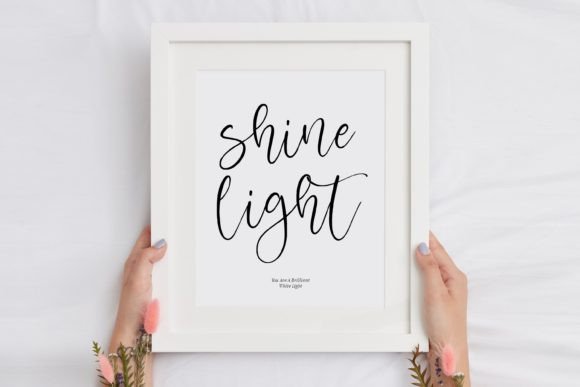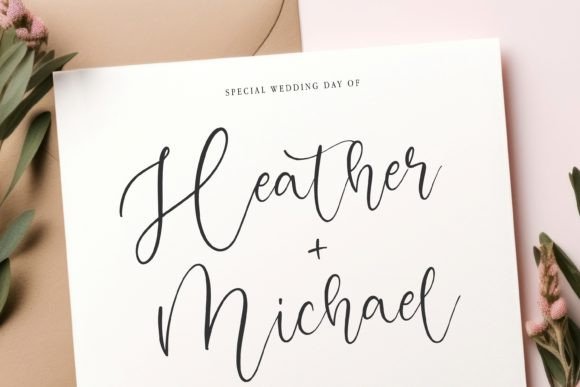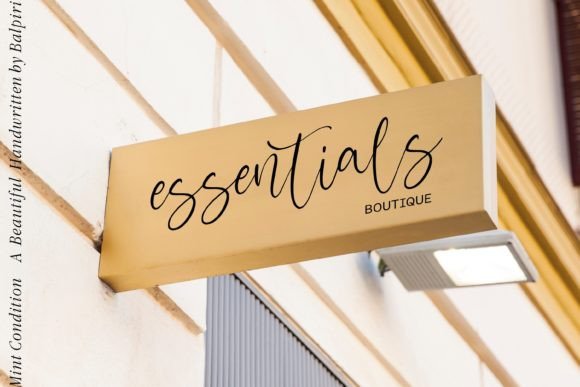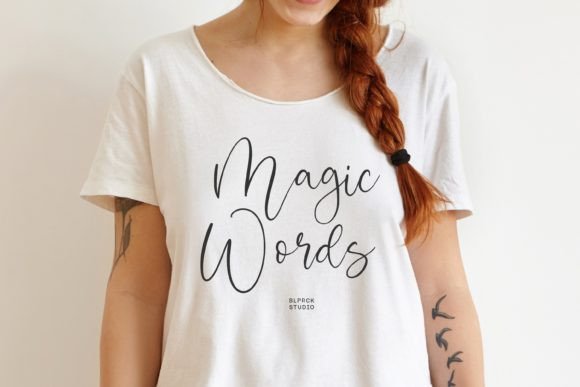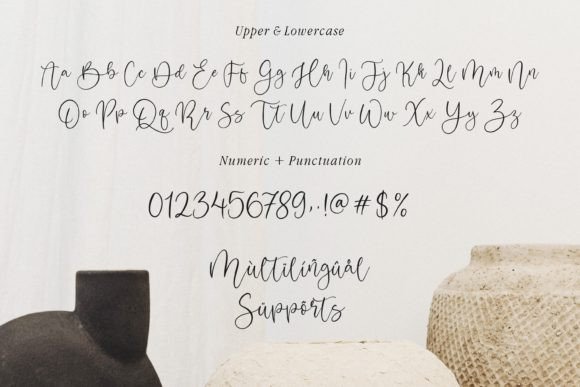
Introduction to Mint Condition Font
Have you ever been working on a design project, pouring your heart and soul into it, only to feel like something’s missing? Maybe you’ve tried every combination of colors, textures, and fonts, but still can’t quite capture the essence of your creative vision. That’s where the Mint Condition Font comes in – a stylish script font that’s guaranteed to breathe new life into your design projects.
As a designer, you know how valuable it is to have access to high-quality design resources that can elevate your work to the next level. The Mint Condition Font is one such resource – a beautifully crafted, modern handwritten font that’s perfect for adding a personal touch to your designs. Whether you’re working on a logo, branding project, or invitation, this font is sure to make an impact with its natural, organic feel and unique character.
Key Features of Mint Condition Font
- High-quality design resource ideal for creative projects and print materials.
- Unique, stylish design with a modern aesthetic, perfect for branding, advertising, and editorial content.
- Includes a comprehensive character set, covering a wide range of languages and special characters.
Honest Review: Mint Condition Font
I recently stumbled upon the Mint Condition Font, and I must say, it’s a gem in the design world. As a designer, I’m always on the lookout for high-quality fonts to elevate my creative projects. This font definitely delivers.
- ✨ Unique design: Mint Condition Font boasts a unique and elegant design that’s perfect for luxury branding, wedding invitations, and other high-end projects.
- ✨ Versatile: The font is incredibly versatile and can be used for a wide range of creative projects, from logos to signage and even web design.
Overall, I’m impressed with the Mint Condition Font. While it’s not perfect, its unique design and versatility make it an excellent addition to any designer’s toolkit. I highly recommend giving it a try, especially if you’re working on a high-end project that requires a touch of elegance and sophistication.
Tips for Getting the Most Out of Mint Condition Font
The Mint Condition Font is ideal for creative projects, such as: